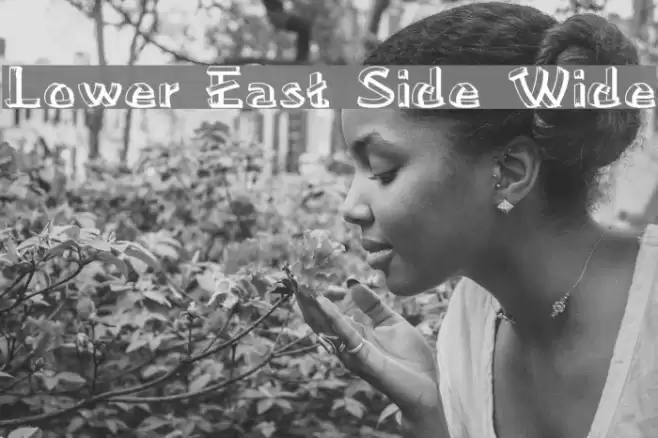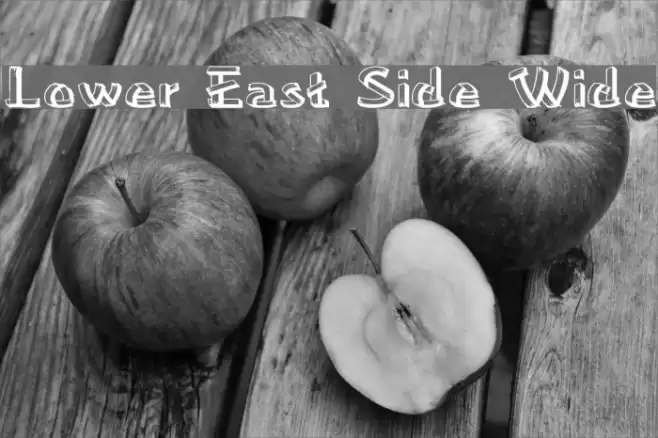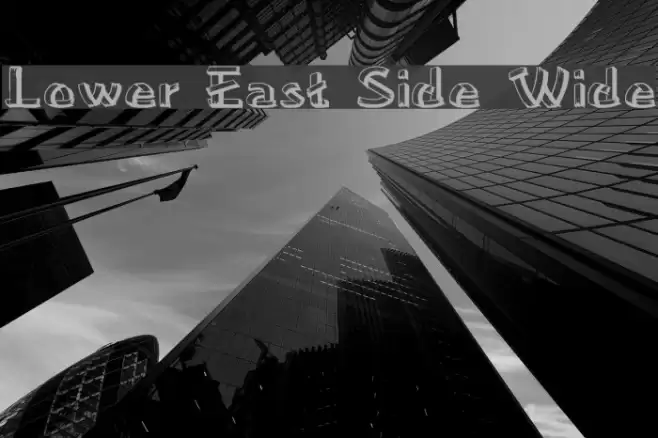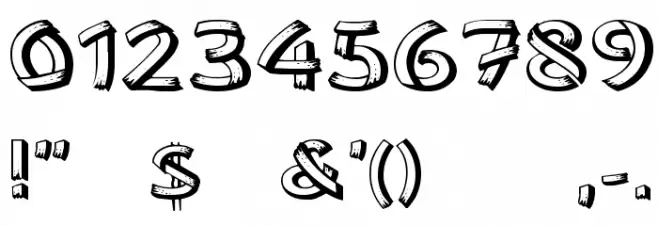
Lower East Side Wide Font
Lower East Side Wide Description
This font features a bold, decorative style with a hand-drawn appearance. Each character is outlined with a thick, uneven stroke, giving it a rugged and artistic feel. The letters have a three-dimensional effect, with shading that adds depth and texture. The uppercase and lowercase letters maintain a consistent style, while the numerals and special characters complement the overall design. This font is ideal for projects that require a unique and eye-catching look, such as posters, logos, and creative branding materials.
A bold, decorative font with a hand-drawn, three-dimensional style from Uncategorized fonts.
- Proposed Projects: Ideal for posters, logos, creative branding, and artistic designs.